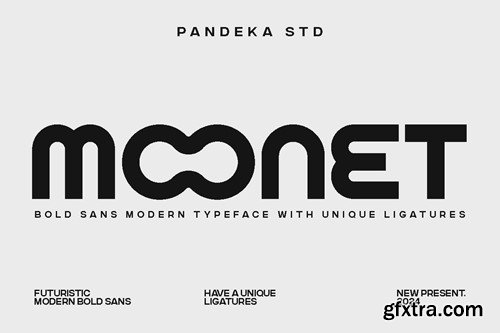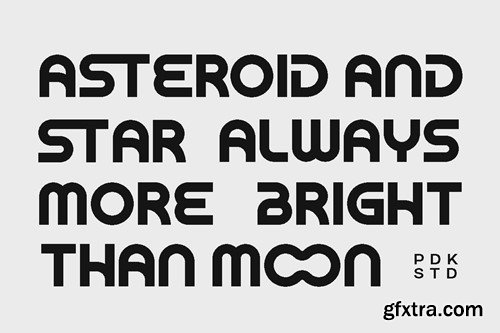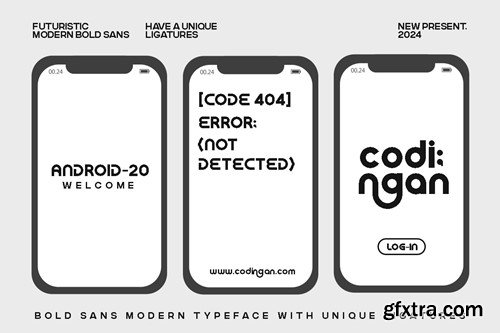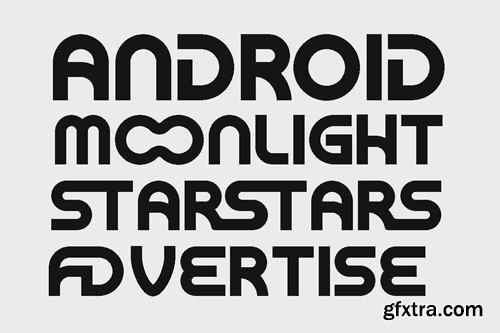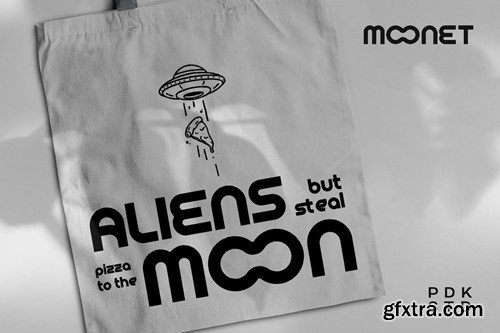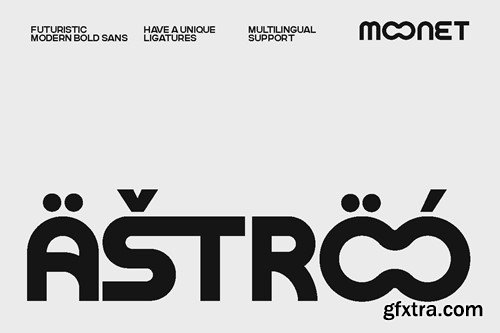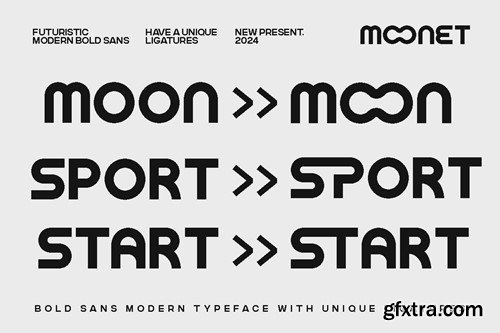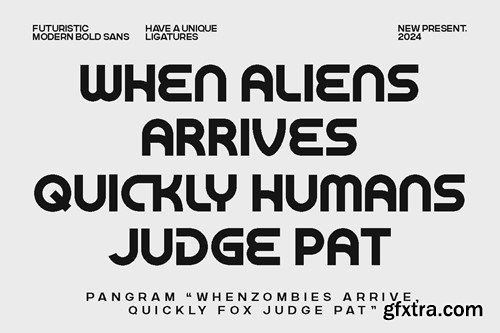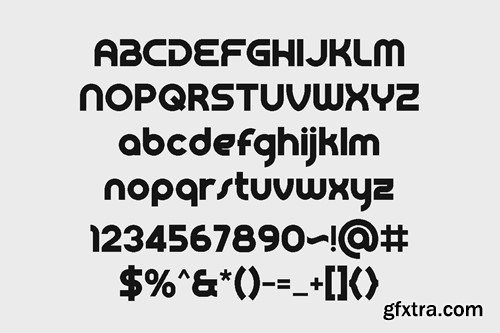
Introducing Moonet! – A futuristic modern font with unique ligatures. Moonet is a stunning typeface that combines elegance with a minimalist form. The curves at each end of the letter ornaments demonstrate that this font is perfectly suited for both the present and the future. Minimalist yet luxurious and classy, Moonet is versatile enough for a wide range of uses. Whether it’s for branding, design templates, invitations, calendars, posters, headlines, brochures, promotional tools, or editorial designs, Moonet was created to meet the visual demands of technological advancement. With its unique ligatures, Moonet can give your branding a futuristic and modern look! Features: Language Support: Danish, English, Estonian, Filipino, Finnish, French, Friulian, Galician, German, Gusii, Indonesian, Irish, Italian, Luxembourgish, Norwegian Bokmål, Norwegian Nynorsk, Nyankole, Oromo, Portuguese, Romansh, Rombo, Spanish, Swedish, Swiss-German, Uzbek (Latin) Feel free to follow, like and share. Thanks so much for checking out my shop! Have a great day! Pandeka Studio